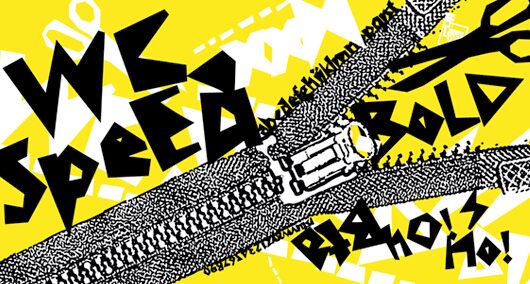
WC Speed Bold by WC Fonts is a free angular display font built from blunt, irregular geometric forms. Sharp wedges give the letters a rough cut-paper look.
Streetwear brands and action-sports events could use its fractured silhouettes for an aggressive, handmade identity. It also fits music posters and game graphics with a fast, unruly atmosphere. The jagged forms can become a logo system, echoing shards or improvised emblems across merchandise.